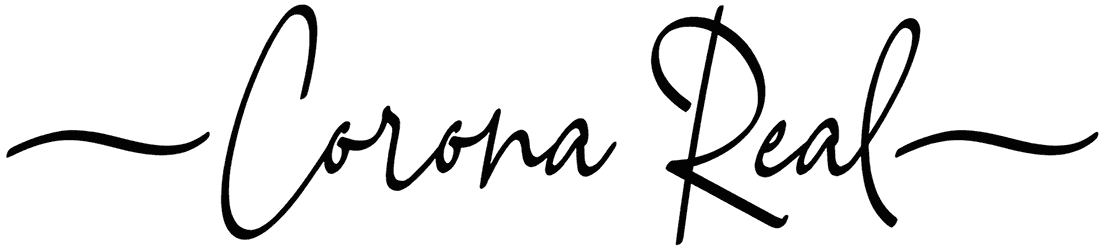
Corona Real Script Font
Corona Real Script is a handwritten font with a casual, flowing design, perfect for adding a touch of personality to your next project. You can use this script font to make anything from invitations and greeting cards to logos and posters.